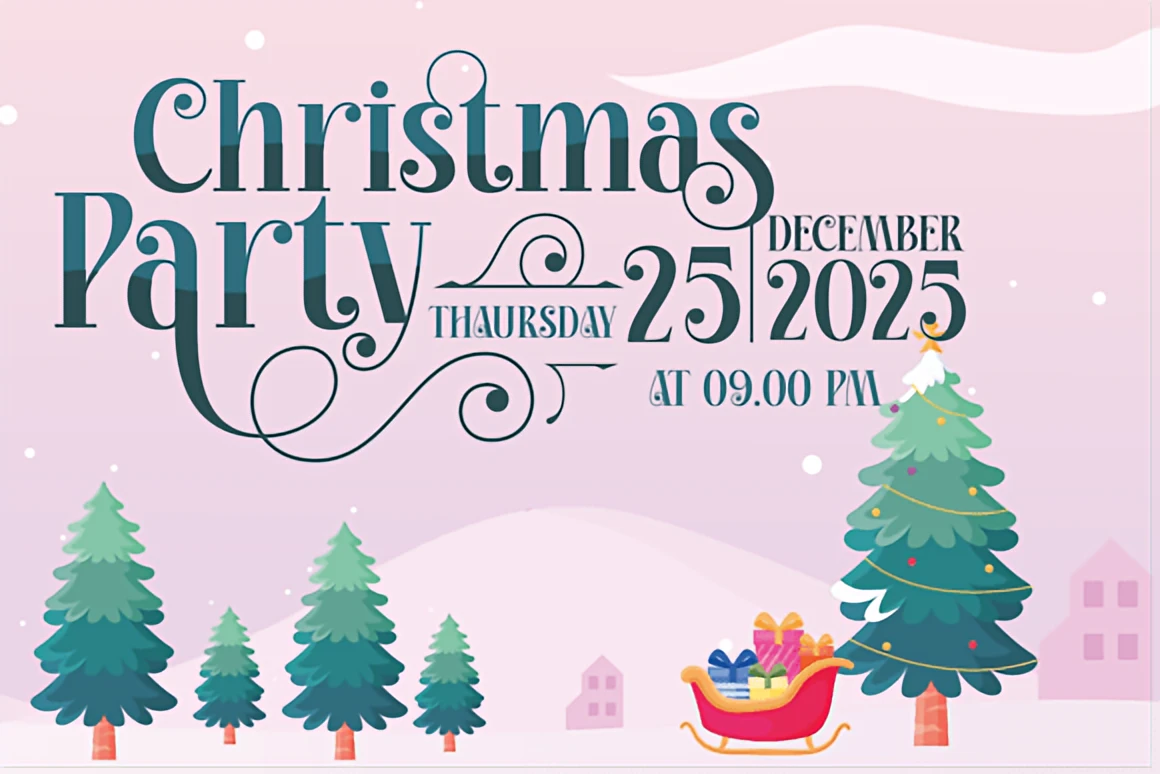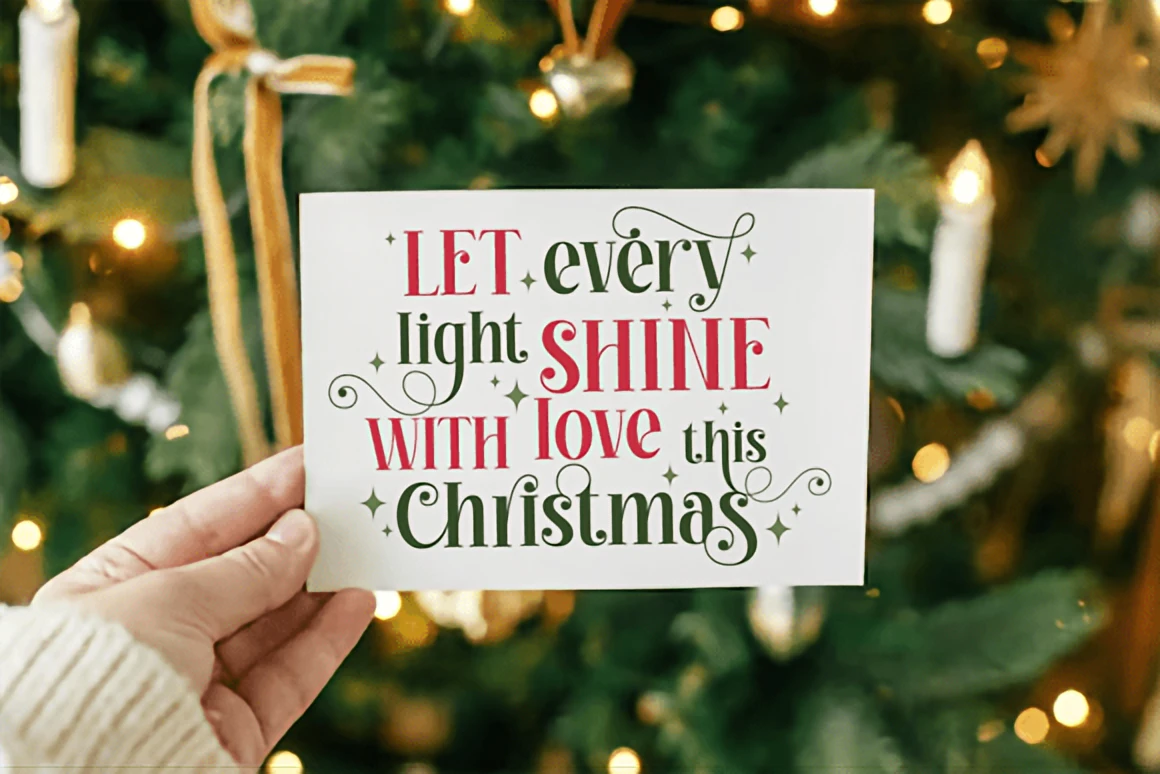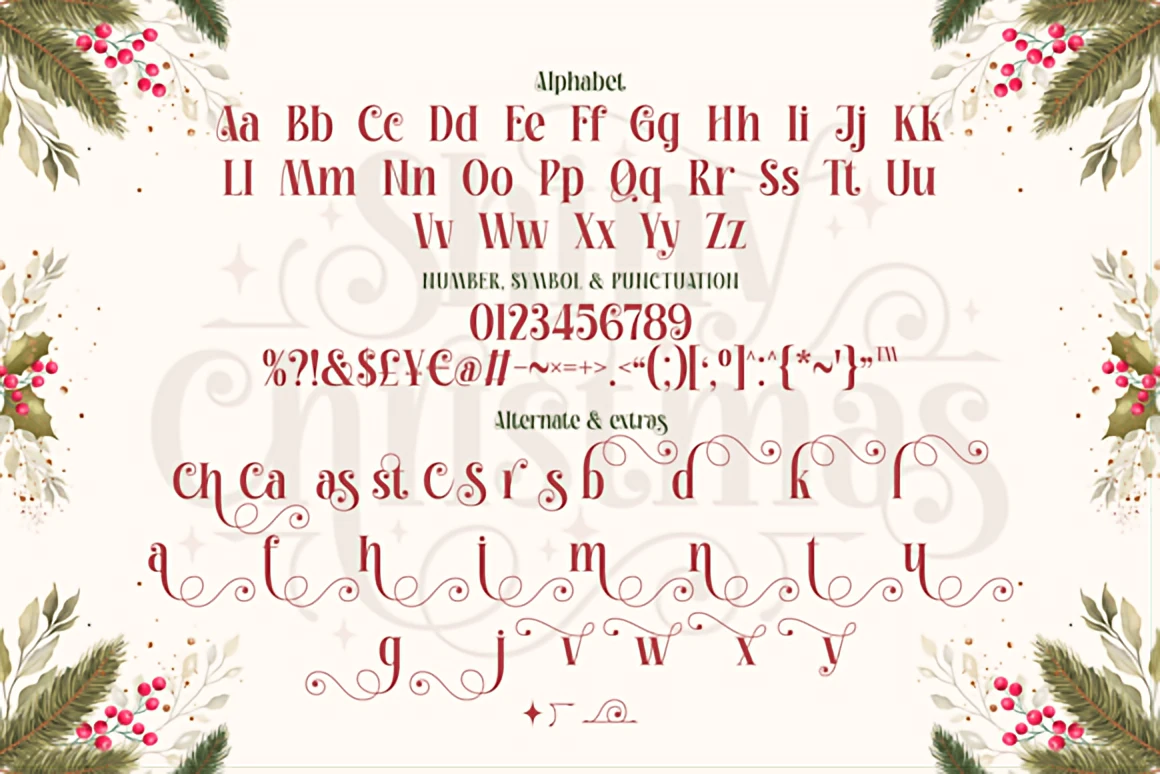
Shiny Christmas Font is a special serif typeface that brings a festive feel to your creative work. It mixes modern serif style with decorative touches, capturing the joy of Christmas with its letter shapes and ornament-like additions.
Great for holiday cards, invites, packaging, gift tags, social media, signs, posters, branding, and marketing, Shiny Christmas makes every design look polished for the season. Its style and smooth lines make it good for headlines, logos, quotes, and titles.
Whether you’re designing products, printables, labels, or packaging, this font offers a balance of class and fun. Its detailed swashes add a handwritten touch while keeping the structure of a serif typeface.
Bring the holiday season to life with Shiny Christmas, a font that shines with style and warmth. From branding to invitations, every word feels like a party.